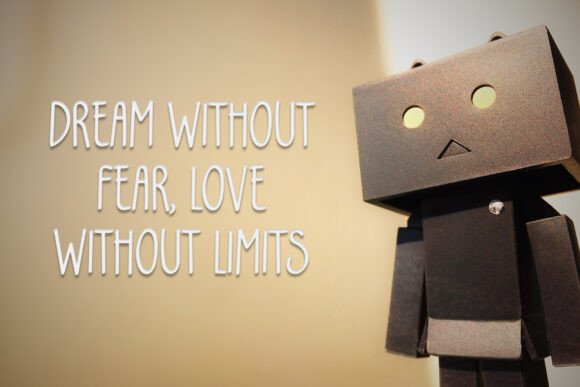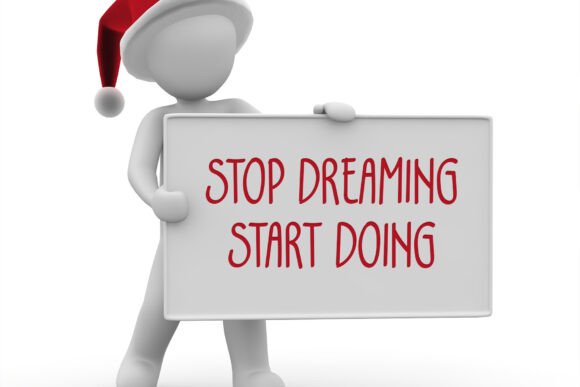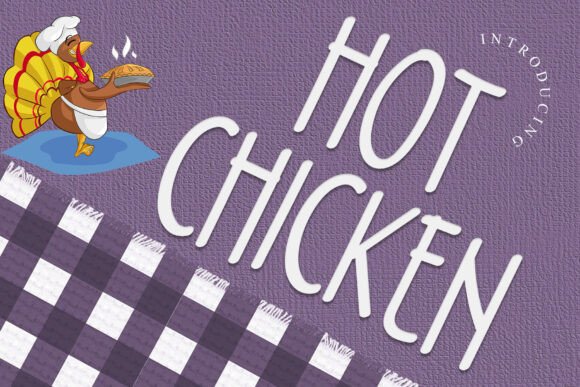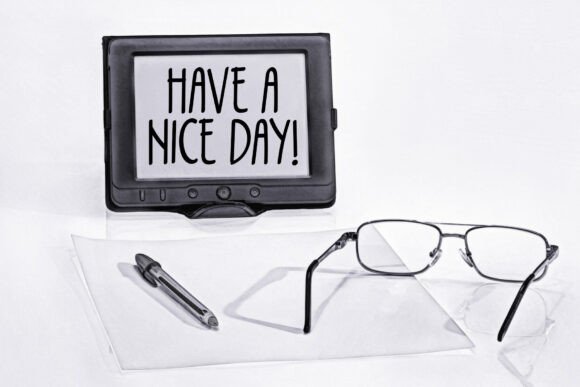
Hot Chicken Font
About the Hot Chicken Font
Presenting Hot Chicken Font, a unique and stylish typeface that will make your work stand out. Hot Chicken is a unique and elegant font specially designed just for you. This font is made with a professional hand touch and is perfect for your projects. This font is very suitable for use in your work projects, all greeting cards from wedding invitation cards, birthdays, all types of parties. This font is also very suitable for use in your creative ideas for school assignments or other important events. Apply this font with your creative ideas to make it look better. This font is very carefully crafted and it is accessible with all glyphs without any additional application.